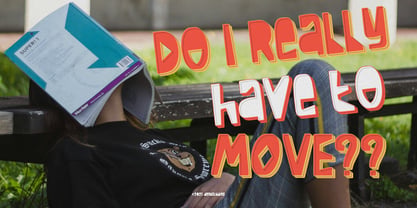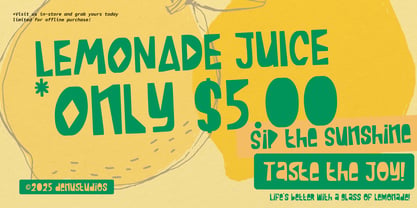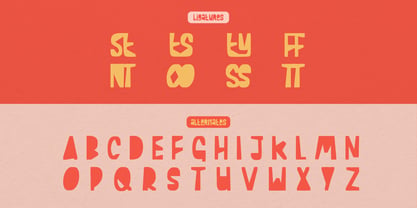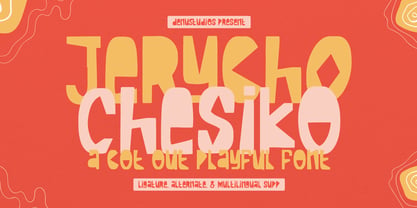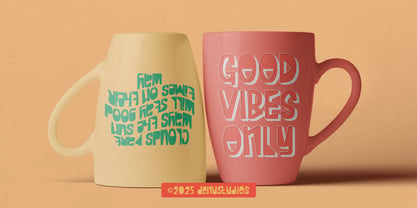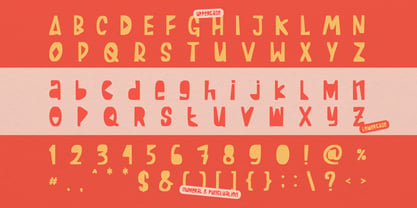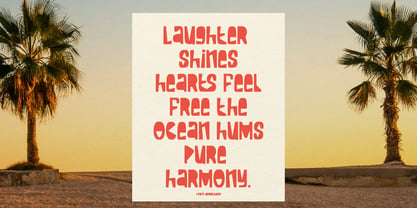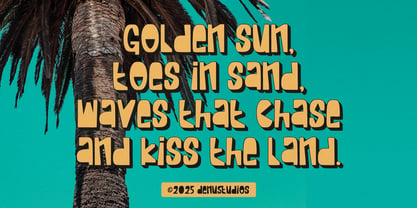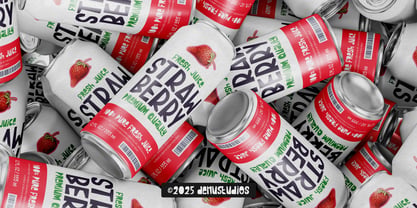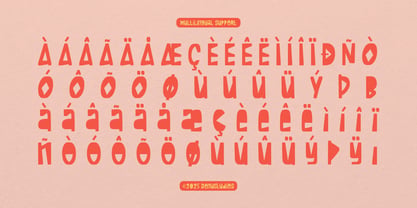
Jerycho Chesiko
by Denustudio
The Jerycho Chesiko Font Family was designed by Dede Nugraha and published by Denustudio. Jerycho Chesiko contains 2 styles and family package options. More about this family
Jerycho Chesiko | Playful Font, from Denustudios, suitable for any projects such as: logos, branding projects, homeware designs, product packaging, mugs, quotes, posters, shopping bags, t-shirts, book covers, name card, invitation cards, greeting cards, label, photography, watermark, special events, and all your other lovely projects that need Bold Playful Font a taste.
• Regular and Italic
• Alternate and Ligature
• Fonts include multilingual support